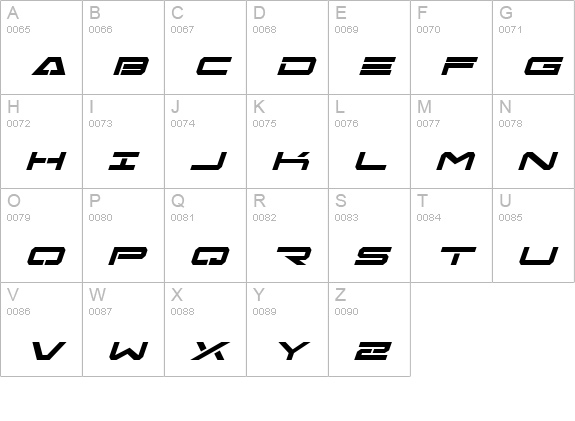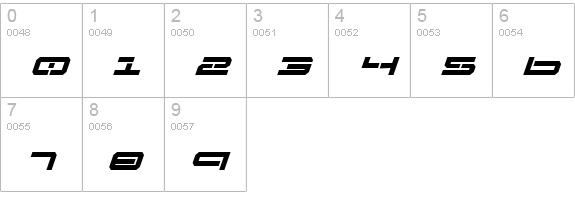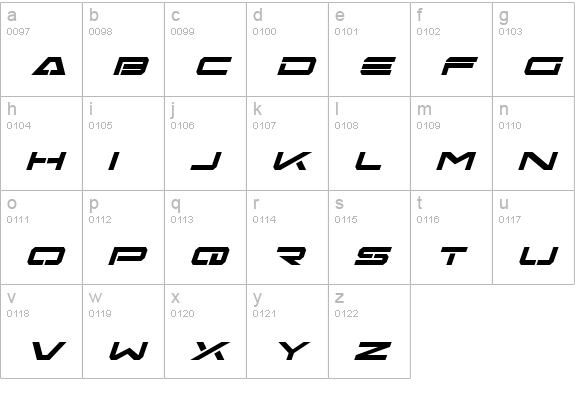
Free Agent Bold ExpItal Font Details
Free Agent Bold ExpItal is a strong, high-contrast variant in the Free typeface family \xE2\x80\x94 well suited to headlines, attention-grabbing titles, and strong calls-to-action.
Introducing Free Agent Bold ExpItal font - a bold and expressive typeface that exudes confidence and modernity. This stylish font is perfect for projects that require a strong and impactful visual presence. The unique blend of boldness and elegance in Free Agent Bold ExpItal font makes it a versatile choice for a wide range of design applications. As the name suggests, Free Agent Bold ExpItal font is available for free download at FontsMarket.com. This means you can easily access this eye-catching font to enhance your creative projects without any cost. Whether you are working on branding, advertising, web design, or any other graphic design project, Free Agent Bold ExpItal font is sure to make a statement and elevate your work to the next level. Add a touch of boldness and sophistication to your designs with Free Agent Bold ExpItal font and make a lasting impression on your audience. Download this striking font for free today and unleash your creativity like never before!